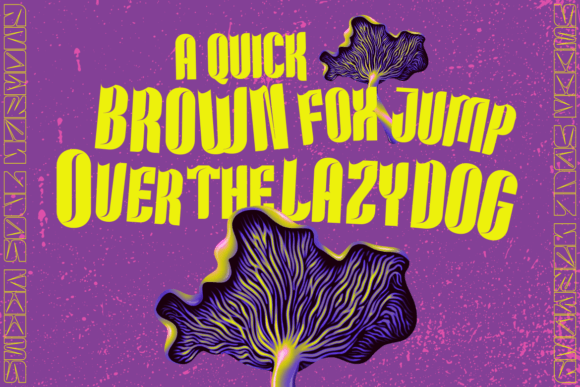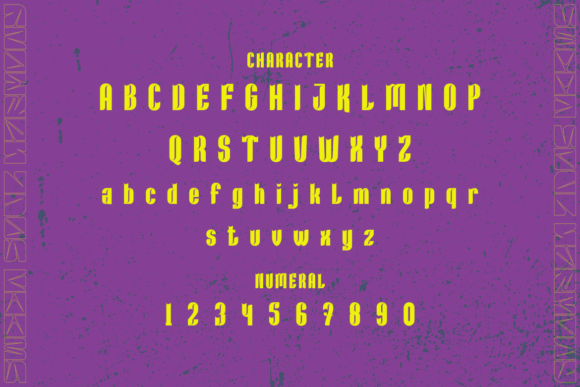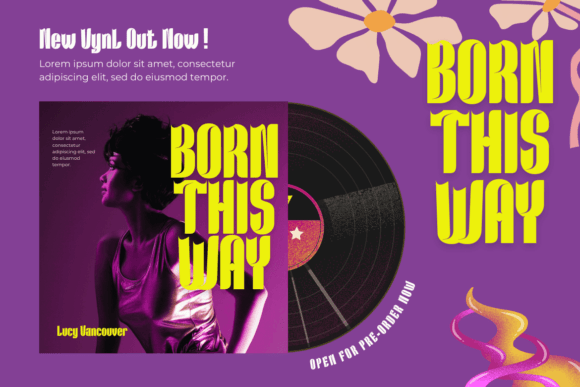
Introduction to Kuximen Font
Kuximen is a groovy, psychedelic display font.
Contemporary and fresh, this font is the ideal choice for all your projects With a cool retro vibe and fun character, it can be used in a variety of circumstances.